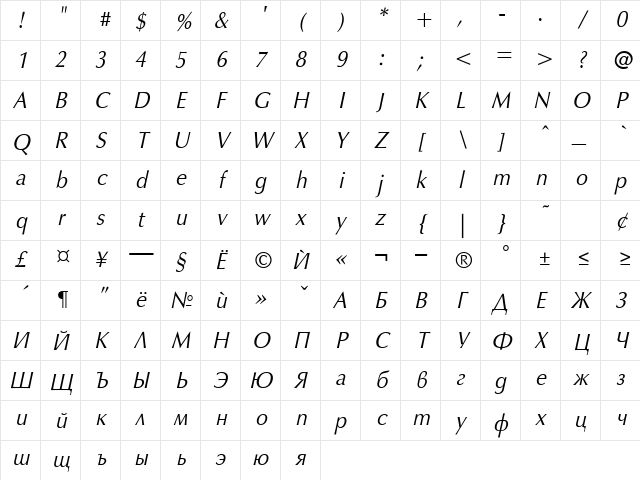
Opal Italic
Design Context for Opal
Opal is a composed and adaptable typeface that performs quietly and consistently across a wide range of design contexts. The slanted form adds forward momentum and visual energy.
Pro Tip: Use Opal for emphasis, pull quotes, and subheadings where its slanted energy can add rhythm to the layout.